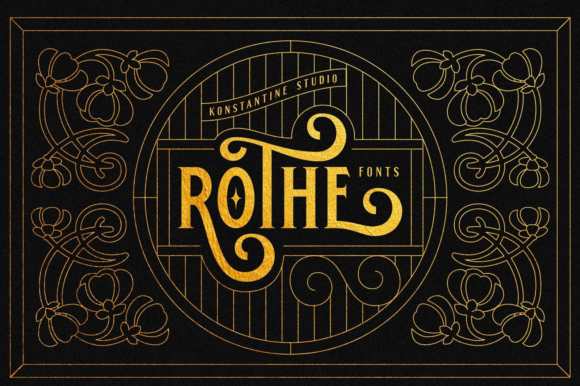
Introducing Rothe Font - The Visual Symphony for the Digital Arena!
Prepare to be mesmerized by Rothe Font, a modern masterpiece crafted for the digital realm. This display font is not just a collection of letters; it's an orchestra of visual elements that dance across your screen, captivating your audience with every stroke.
Step into a world where boldness and playfulness collide, where individuality and impact intertwine seamlessly. Rothe Font's uniquely shaped letters are like brushstrokes of creativity, painting a picture of originality and style. It's the perfect choice for designers, artists, and visionaries seeking to make a statement.
Rothe Font is not just another font; it's an experience. Its assertive presence commands attention, demanding to be seen and heard. Whether you're designing logos, creating posters, crafting social media graphics, or embarking on any other creative endeavor, Rothe Font will elevate your work to new heights.
Immerse yourself in the beauty of meticulously crafted glyphs, each one a testament to the artistry behind this font. The subtle curves, sharp angles, and distinctive details of Rothe Font create a visual symphony that resonates with your audience, leaving an indelible mark on their minds.
Unlock the power of versatility with Rothe Font. Its diverse range of applications knows no bounds. Use it to create stunning headlines that grab attention from across the room, craft eye-catching posters that demand to be noticed, or design social media graphics that ignite engagement.
Let Rothe Font be your canvas, your brush, and your palette. Paint your digital dreams into reality and leave a lasting impression on the world. Embrace the boldness, revel in the playfulness, and unleash your creativity with this extraordinary display font.
Experience the Rothe Font difference today and witness your designs transformed into captivating works of art.